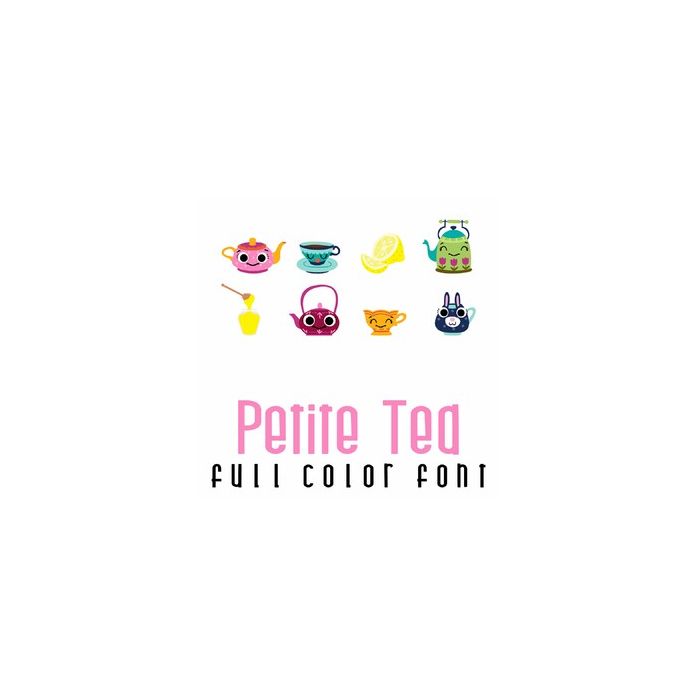
This adorable full-color doodlebat font features 26 tea-themed imagery in cute Kawaii style. Perfect for cards, crafts, gifts, parties, planner stickers, scrapbook pages, and more!